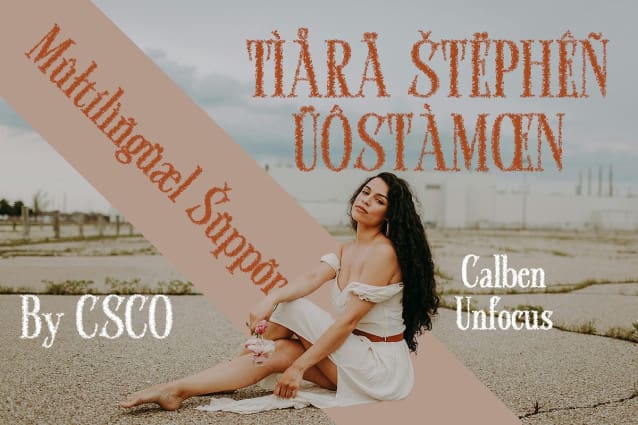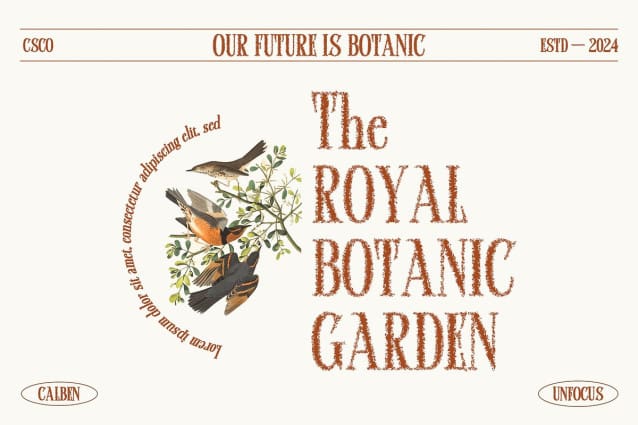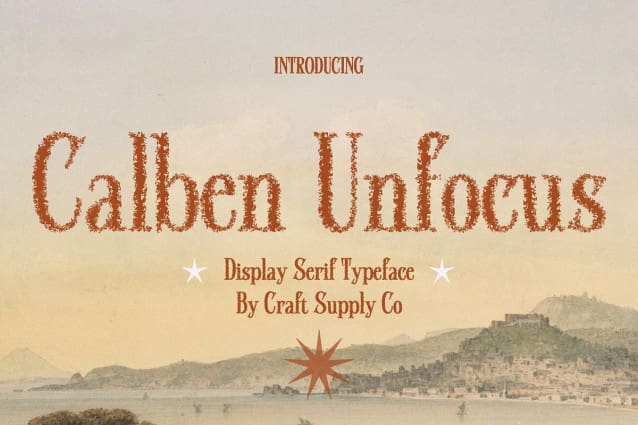
Calben Unfocus Font
Calben Unfocus Font: Redefining Display Typography. Unfocused Serif Condensed Style Calben Unfocus presents a unique display font with a condensed serif style and an innovative unfocus effect. The characters appear slightly blurred, adding a distinctive aesthetic to contemporary or experimental designs.
Bold and Experimental Embrace boldness and experimentation with This font. Its blurred contours challenge traditional typographic norms, making it ideal for projects that demand a daring and unconventional approach.
Perfect for Contemporary Display Tailored for contemporary display needs, This font excels in settings where creativity knows no bounds. From avant-garde branding to cutting-edge editorial layouts, this font injects a sense of intrigue and originality.
Versatility in Design Despite its experimental nature, This font remains versatile in design application. Whether used sparingly for emphasis or as the focal point of a composition, its unfocused serifs offer endless possibilities for creative expression.
Pushing the Boundaries This font pushes the boundaries of display typography with its blurred serif condensed style. Embrace experimentation, creativity, and innovation with this font, and unlock new possibilities for contemporary design endeavors.